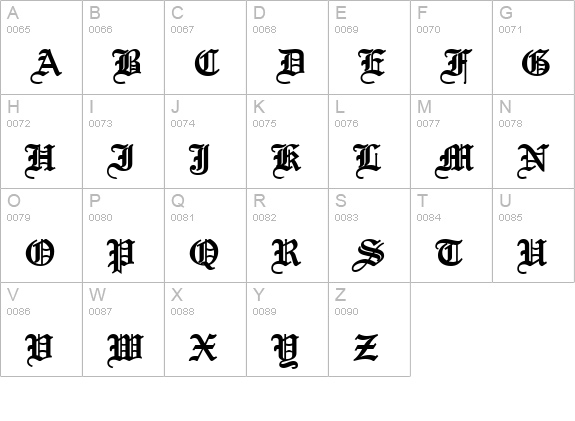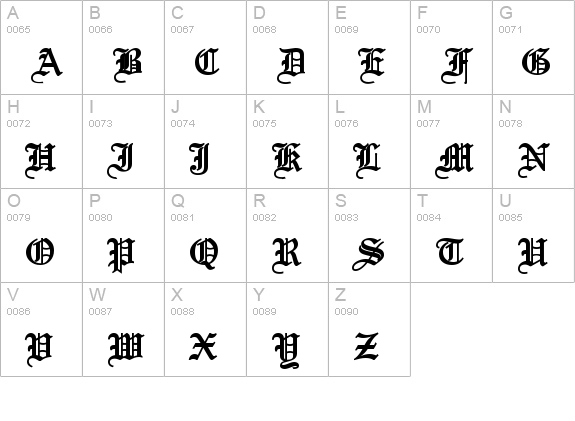
England Bold Font Details
England Bold is a strong, high-contrast variant in the England typeface family \xE2\x80\x94 well suited to headlines, attention-grabbing titles, and strong calls-to-action.
England Bold font is a timeless and classic typeface that exudes elegance and sophistication. With its bold and strong letterforms, this font is perfect for making a bold statement in any design project. Whether you are creating posters, headlines, or branding materials, England Bold font will add a touch of sophistication and style. The best part is that England Bold font is available for free download at FontsMarket.com. This means you can easily access this stunning font and use it in your projects without any cost. Don't miss out on the opportunity to elevate your designs with the beauty and elegance of England Bold font. Download it now and add a touch of class to your creations.